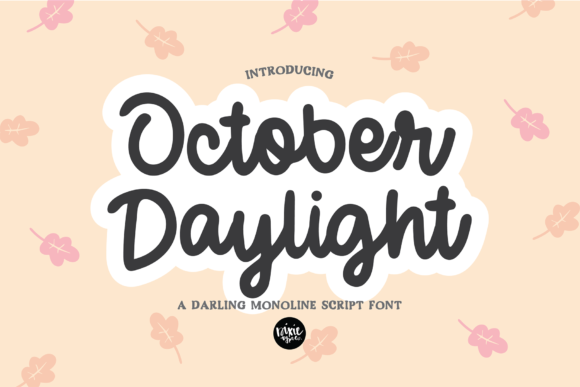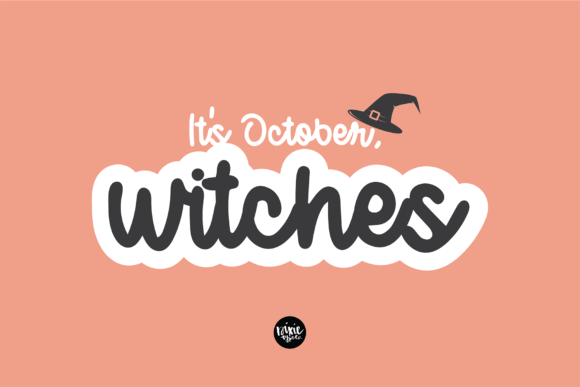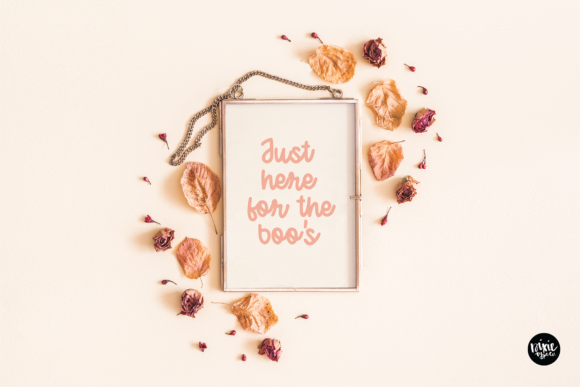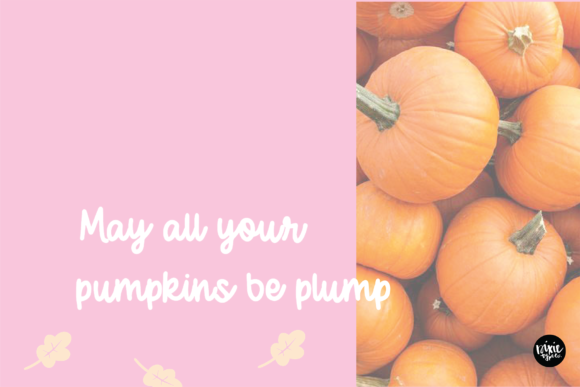
October Daylight Font
About the October Daylight Font
The October Daylight Font offers a perfect balance of form and function for your design needs. October Daylight is a cute bold-lettered display font. Fall in love with it and bring your projects to the highest levels!
October Daylight’s bold, playful nature makes it ideal for headlines, short slogans, and branding elements where a strong visual impact is desired. It works exceptionally well in posters, packaging for playful products, and social media graphics. However, its condensed letterforms and heavier weight make it unsuitable for body text or long paragraphs; readability suffers at smaller sizes.
Consider pairing October Daylight with a clean sans-serif like Lato for a balanced contrast, or a more delicate script font like Great Vibes for a touch of elegance. A geometric sans-serif such as Roboto would offer a modern and structured counterpoint. Avoid pairing it with other heavily ornamented or decorative fonts, which would create visual clutter.
The font’s overall personality is energetic and friendly, making it a great choice for brands targeting a younger demographic or projects with a lighthearted and approachable feel.
October Daylight Font Usage Examples
October Daylight Font Example